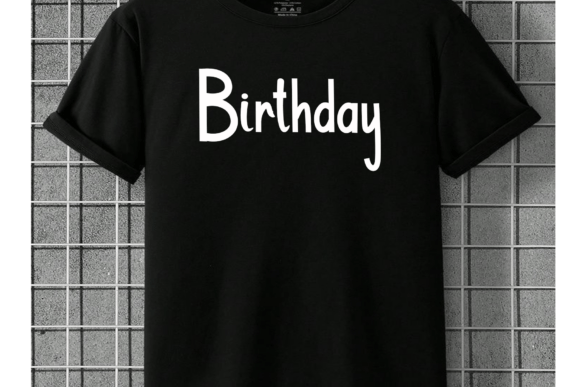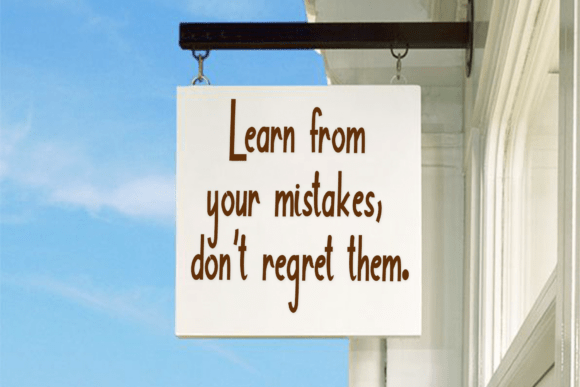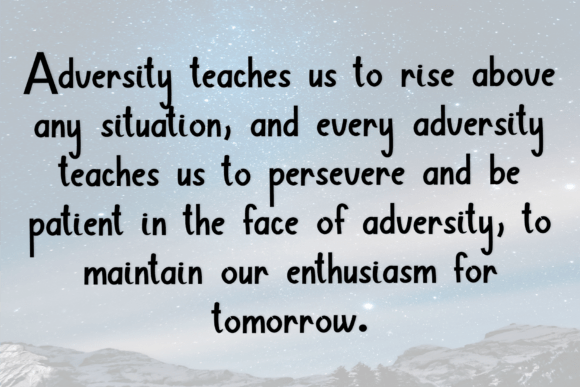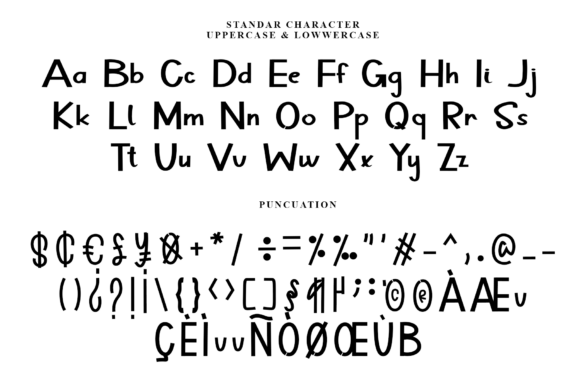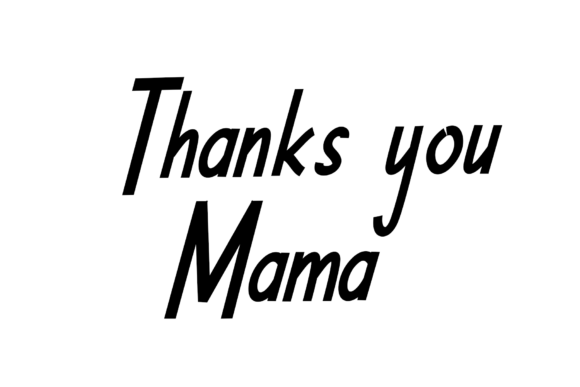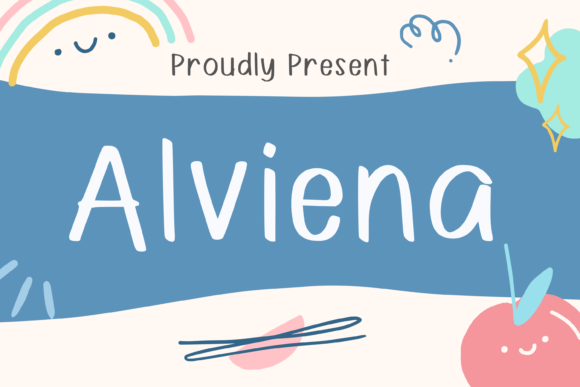
The Perfect Shot: Introducing Basketball Font
Have you ever been brainstorming a design project and suddenly, the perfect idea hits you like a slam dunk? For designers, those ‘aha’ moments are the best – and that’s exactly what we’re feeling about Basketball Font.
This charming handwritten font is more than just a pretty face; it’s a game-changer for your next project. With its smooth strokes, natural curves, and effortless style, Basketball Font is the perfect way to add a personal touch to your designs. Whether you’re working on a quote, invitation, or social media post, this font is sure to capture the charm of authentic handwriting with a modern twist.
As a valuable addition to any designer’s toolkit, Basketball Font offers both readability and charm – making it a slam dunk for any project. With its versatility and approachable feel, it’s no wonder why Basketball Font is quickly becoming a favorite among creatives.
Basketball Font Key Features
- Unique Characteristics: Basketball Font features a bold, modern design with rounded edges and a distinctive “basketball-inspired” feel, making it perfect for sports-related projects and branding.
Basketball Font Review
As a designer, I’ve had the chance to work with “Basketball Font”, and I’ve got some mixed feelings about it. Let’s dive in.
What works well: ✨ The font has a fun and energetic vibe that’s perfect for sports-related projects, especially basketball. The letterforms are playful, with some nice rounded edges that give it a friendly feel. It’s also a great choice for titles and headlines, where you want to grab the viewer’s attention.
- The font has a wide range of weights, from light to bold, which gives you a lot of flexibility when designing.
- The font is highly legible, even at smaller sizes, which is a must for any font.
Limitations: ⚠️ While the font has a lot of potential, it feels a bit one-dimensional. It’s a great choice for sports-related projects, but it might not be the best choice for other types of projects. Additionally, the font’s playfulness might come across as unprofessional in some contexts.
Overall, I think “Basketball Font” is a solid choice for the right project. If you’re working on a sports-related project and want a fun, energetic font, this might be a great choice. However, if you’re looking for a more versatile font that can work across multiple projects, you might want to consider other options.
The Basketball Font is ideal for:
- Basketball-themed graphics and designs.
- Sports branding and marketing materials.
- Custom basketball logos and jerseys.
- Basketball-themed social media graphics and posts.
Alternatives to Basketball Font
Basketball Font, also known as “Basketball”, is a sans-serif font known for its simplicity and modern feel. However, it may not be suitable for all designs. Here are some alternatives: